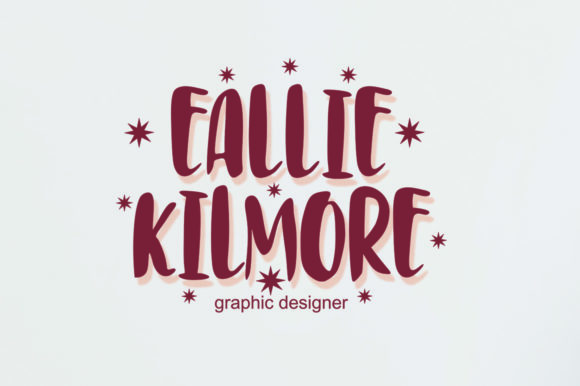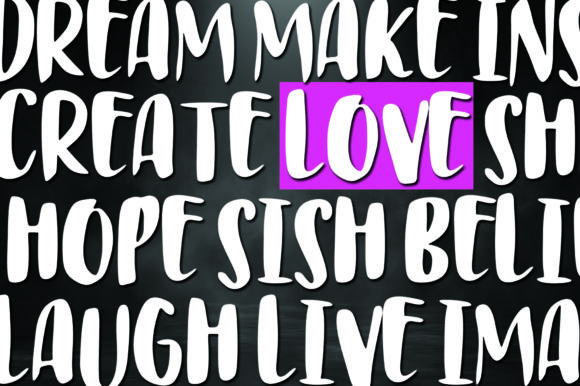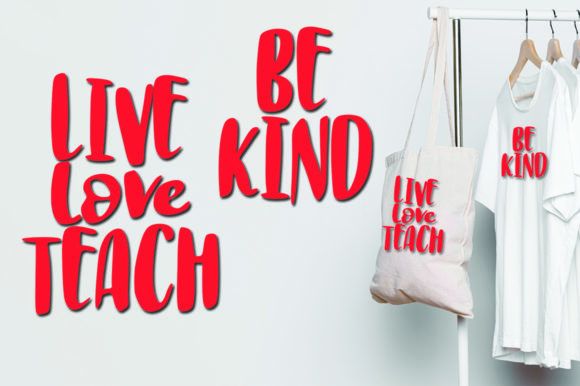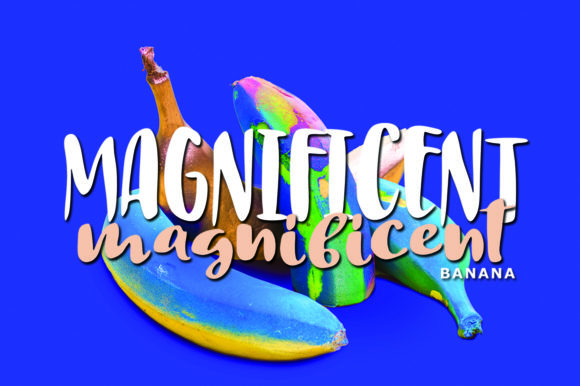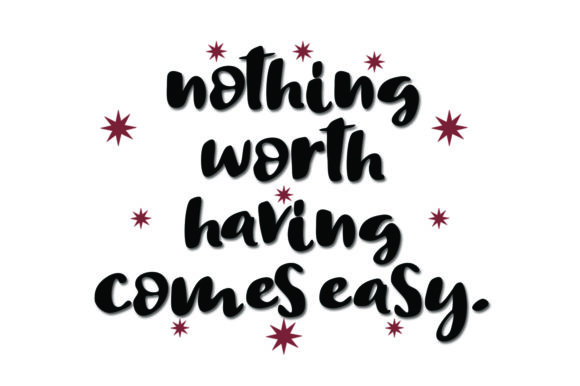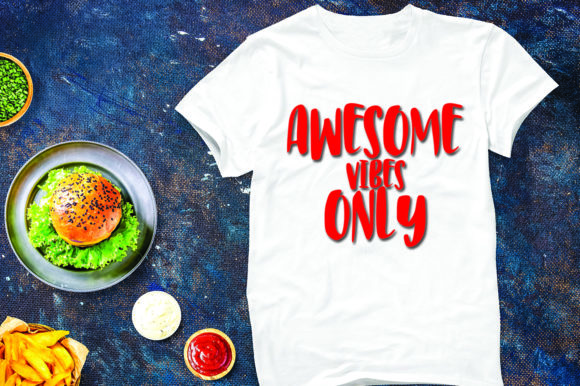
Introducing Black Sweet Font: The Ultimate Choice for Bold and Fun Designs
Are you tired of using the same old fonts for your designs? Do you want to add a touch of personality and whimsy to your creations? Look no further than Black Sweet Font, a bold and fun handwritten font that’s perfect for making original and outstanding designs!
What is Black Sweet Font?
Black Sweet Font is a unique and eye-catching font that’s designed to make your designs stand out from the crowd. With its bold and playful style, this font is perfect for adding a touch of fun and personality to any project. Whether you’re a designer, crafter, or DIY enthusiast, Black Sweet Font is the perfect choice for creating original and outstanding designs.
Features of Black Sweet Font
So, what makes Black Sweet Font so special? Here are just a few of its key features:
- Bold and playful style: Black Sweet Font has a bold and playful style that’s perfect for making a statement.
- Handwritten feel: This font has a handwritten feel that’s perfect for adding a touch of personality to your designs.
- Easy to read: Despite its bold style, Black Sweet Font is easy to read and understand, making it perfect for use in a variety of designs.
- Versatile: Black Sweet Font can be used in a wide range of designs, from posters and flyers to social media graphics and more.
Why Choose Black Sweet Font?
So, why should you choose Black Sweet Font for your designs? Here are just a few reasons:
- Stand out from the crowd: With Black Sweet Font, you can create designs that stand out from the crowd and grab attention.
- Add personality to your designs: This font adds a touch of personality and whimsy to your designs, making them more engaging and fun.
- Perfect for crafters and DIY enthusiasts: Black Sweet Font is perfect for crafters and DIY enthusiasts who want to add a touch of personality to their projects.
Design Ideas Using Black Sweet Font
Black Sweet Font is perfect for a wide range of designs, including:
- Posters and flyers: Use Black Sweet Font to create eye-catching posters and flyers that grab attention.
- Social media graphics: Add a touch of personality to your social media graphics using Black Sweet Font.
- Craft projects: Use Black Sweet Font to add a touch of personality to your craft projects, such as scrapbooking and card making.
- DIY signs: Create eye-catching DIY signs using Black Sweet Font and a bold color scheme.
Black Sweet Font is a bold and fun handwritten font that’s perfect for making original and outstanding designs. With its bold and playful style, easy readability, and versatility, this font is perfect for designers, crafters, and DIY enthusiasts alike. So why wait? Download Black Sweet Font today and start creating amazing designs that stand out from the crowd!